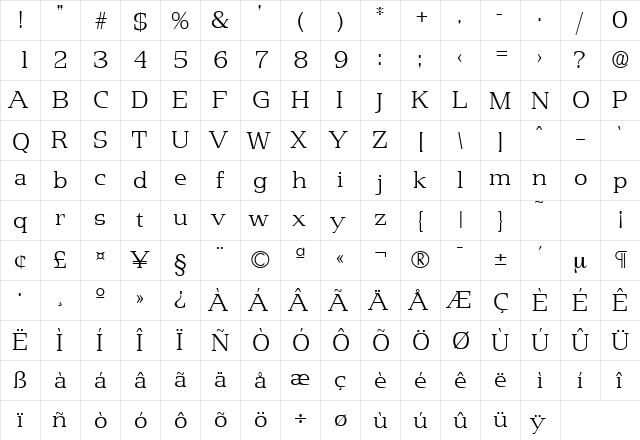
Penthouse-Serial-ExtraLight Regular
Design Context for Penthouse-Serial-ExtraLight Typeface
Penthouse-Serial-ExtraLight takes a measured approach to typography — its balanced proportions and neutral character make it a reliable workhorse for both digital and print work. Its slender proportions lend an understated elegance to any composition.